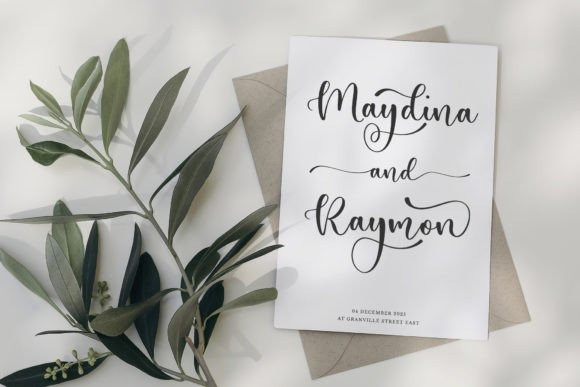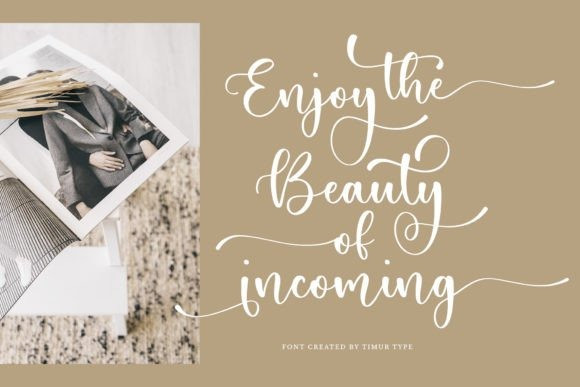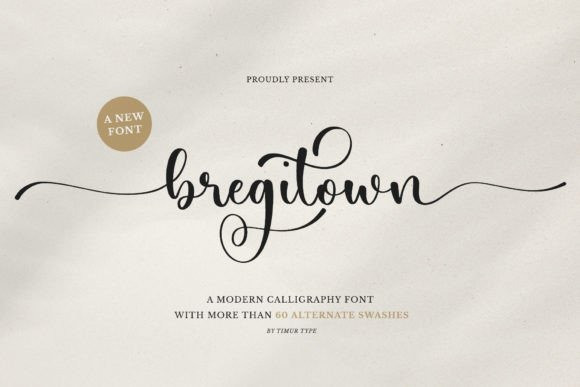
Bregitown Font
Bregitwon Script Font is a script font that is the epitome of modern elegance, designed to add a touch of sophistication to any project. With graceful curves and refined lines, each letter exudes a timeless beauty that’s perfect for wedding invitations, branding, and other designs that require a touch of refined luxury.